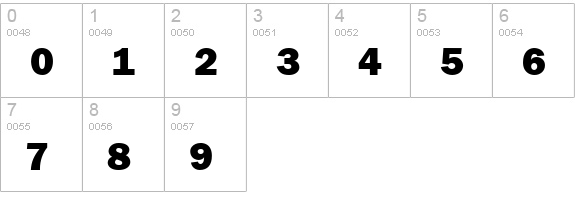
FrankfurtGothicHeavy Font Details
FrankfurtGothicHeavy is a bold and impactful font that exudes a strong and commanding presence. Its thick, blocky letterforms give off a sense of power and authority, making it perfect for headlines, logos, and other prominent design elements. The sharp angles and clean lines of this typeface add a modern edge to any project, while still maintaining a classic and timeless feel. One of the best things about FrankfurtGothicHeavy is that it is completely free to download. You can easily access this striking font on FontsMarket.com, where you'll find a wide range of other high-quality fonts to enhance your creative projects. Whether you're working on a branding campaign, a poster design, or a website layout, FrankfurtGothicHeavy is sure to make a bold statement and leave a lasting impression on your audience. Download it today and elevate your designs with this powerful and versatile typeface.